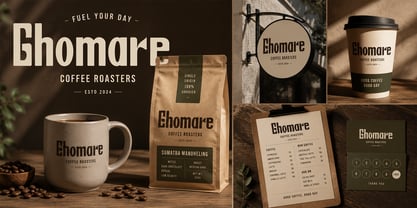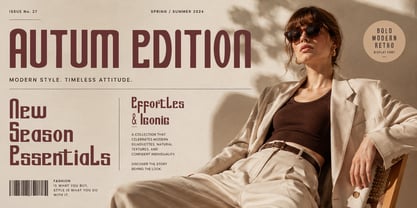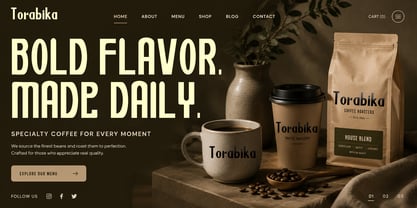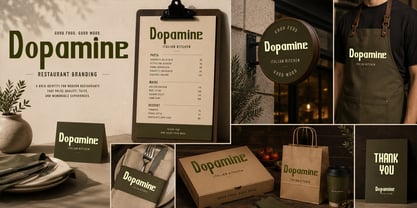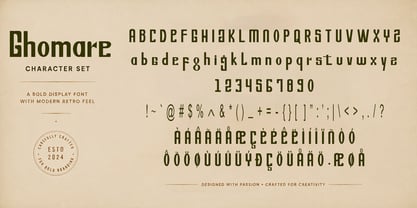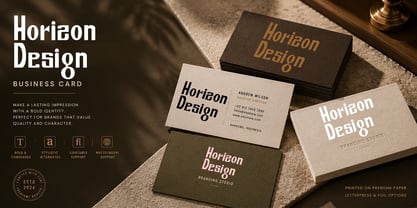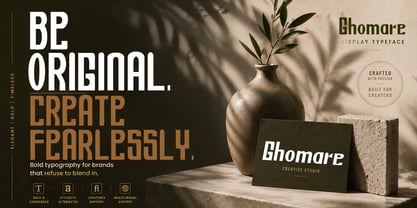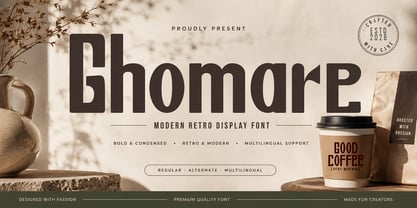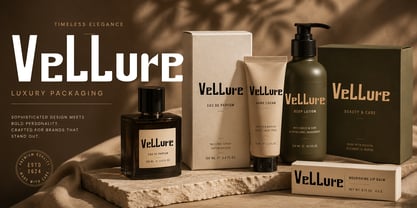
Ghomare
La famille de polices Ghomare a été conçue par Teuku Saifullah et publiée par Shape Studio. Ghomare contient 5 styles et options de package familial. En savoir plus sur cette famille
Ghomare is a bold modern retro display font that blends vintage charm with contemporary precision. Featuring a strong condensed structure, clean geometric curves, and eye-catching letterforms, it is designed to create impactful headlines and memorable branding.
Perfect for coffee shop branding, food packaging, vintage posters, logos, apparel, editorial layouts, product labels, social media graphics, signage, and advertising campaigns. Ghomare also includes multilingual support and alternate characters, making it a versatile choice for creative projects that demand both personality and readability.
Whether you're building a nostalgic brand identity or designing bold promotional materials, Ghomare delivers a timeless retro aesthetic with a modern edge.